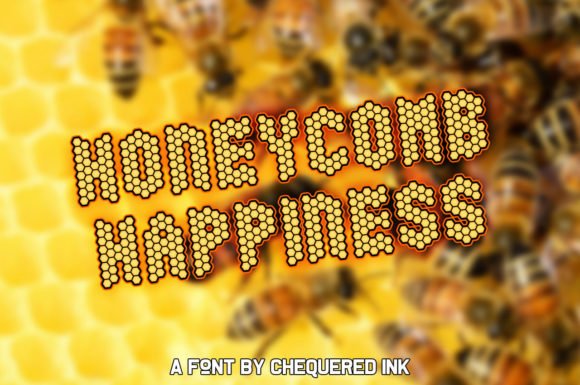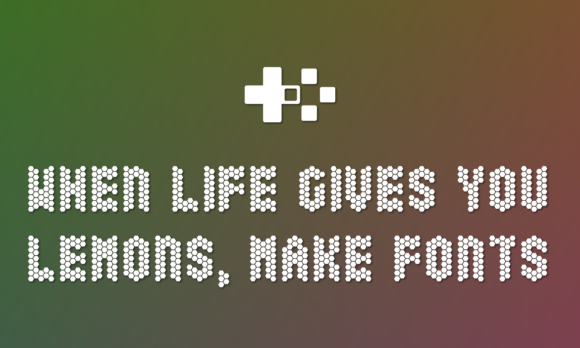
The Sweetest Typography Treat: Unveiling the Honeycomb Happiness Font
Have you ever been in the middle of a creative project, staring blankly at your screen, desperately searching for that one missing element to bring your design to life? For designers, this feeling is all too familiar. It’s the moment when inspiration strikes, and you’re left wondering where to find the perfect font to elevate your work. For those in search of a magical typography solution, we’re excited to introduce you to the enchanting Honeycomb Happiness Font.
| 📌 Product Name | Honeycomb Happiness Font |
| 👤 Author | Chequered Ink |
This modern yet whimsical display font is designed to transport your designs into a world of wonder and delight. With its unique honeycomb-inspired design, Honeycomb Happiness Font adds a touch of magic to any project. Whether you’re a seasoned designer or just starting out, this font is sure to bring a smile to your face and a sparkle to your creations.
Honeycomb Happiness Font Key Features
- Unique Characteristics: The Honeycomb Happiness Font features a unique, honeycomb-inspired design with a happy and playful tone, making it perfect for creative and child-friendly projects.
- Character Set: Includes a wide range of characters, including Latin, Greek, and Cyrillic alphabets, as well as punctuation and symbols.
Honeycomb Happiness Font Review
First impressions are everything, and the Honeycomb Happiness Font does not disappoint. ✨ Its unique design is sure to catch the eye, making it perfect for any brand looking to add a touch of whimsy to their visual identity. The font’s honeycomb-inspired patterns and playful lines are both eye-catching and endearing.
From a technical standpoint, the font is well-designed and easy to use. It’s available in a range of weights and styles, making it versatile enough to suit any design project. The font also includes a range of glyphs and symbols, which is a definite plus.
Limits and Areas for Improvement
While the Honeycomb Happiness Font is a great addition to any designer’s toolkit, there are a few limitations to be aware of. ⚠️ For one, the font’s unique design can be a bit overwhelming in large quantities. It’s best used in moderation, lest it become too busy and overwhelming. Additionally, the font may not be the best choice for text-heavy projects, as the honeycomb patterns can make it difficult to read.
Overall, I’m a fan of the Honeycomb Happiness Font. Its unique design and versatility make it a great choice for any design project. While it may have a few limitations, the benefits far outweigh the drawbacks. If you’re looking for a font that will add a touch of personality to your design, the Honeycomb Happiness Font is definitely worth considering.
- Unique honeycomb-inspired design
- Available in a range of weights and styles
- Includes a range of glyphs and symbols
- Best used in moderation due to busy design
- May not be suitable for text-heavy projects
Tips for Getting the Most Out of the Honeycomb Happiness Font
Use the Honeycomb Happiness Font to add a playful and whimsical touch to your designs. Experiment with different font sizes and styles to create visual interest. Pair the font with bright and bold colors to make it stand out.
The Honeycomb Happiness Font is perfect for:
- Birthday and wedding invitations
- Social media graphics and posts
Compared to Honeycomb Happiness Font, Pacifico has a more refined and polished look, making it suitable for high-end designs. While Honeycomb Happiness Font has a playful and whimsical feel, Pacifico is more suited for formal and professional applications.
Q: Does the Honeycomb Happiness Font support multilingual characters?
Yes, the Honeycomb Happiness Font includes a comprehensive character set supporting Latin, Greek, and Cyrillic scripts, as well as various diacritical marks and symbols. However, for specific language support or additional characters, please consult the font’s documentation or contact the font creator.